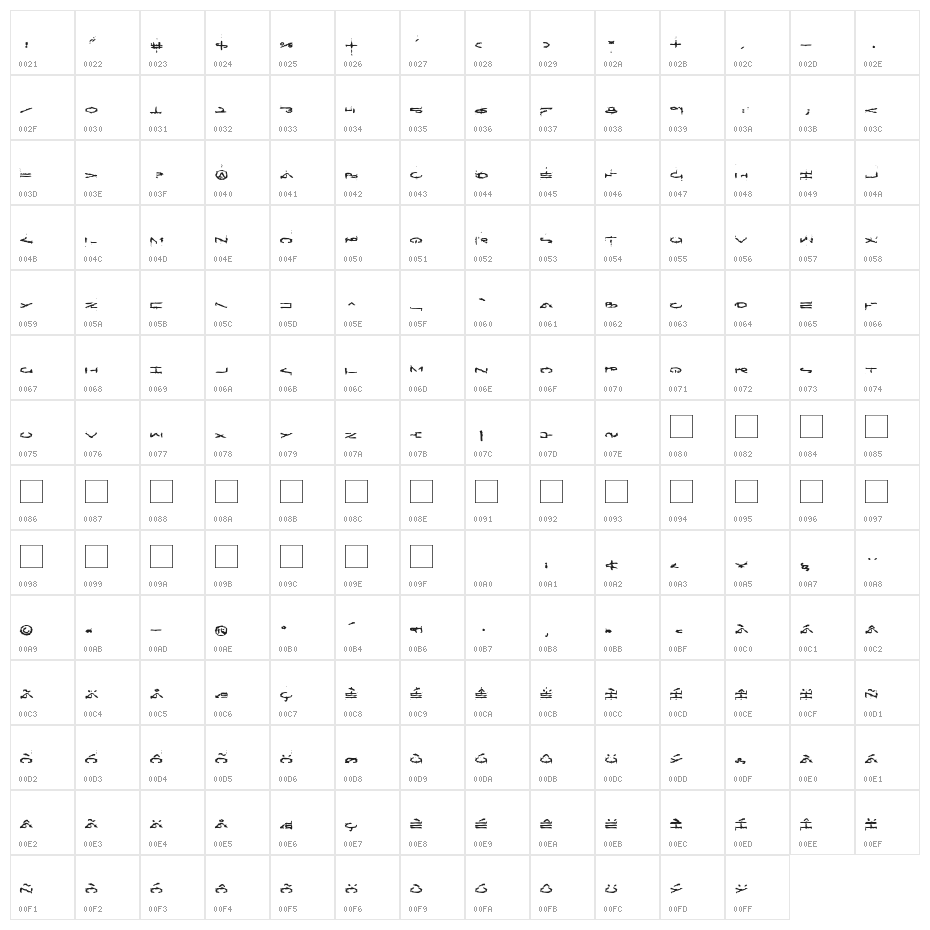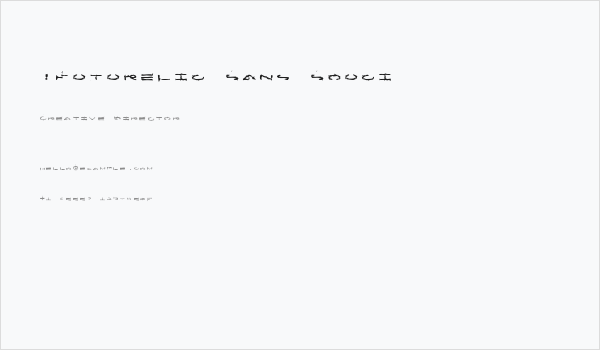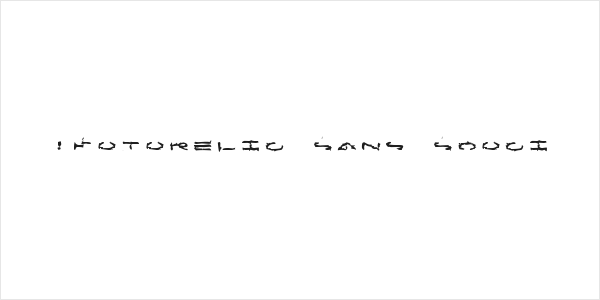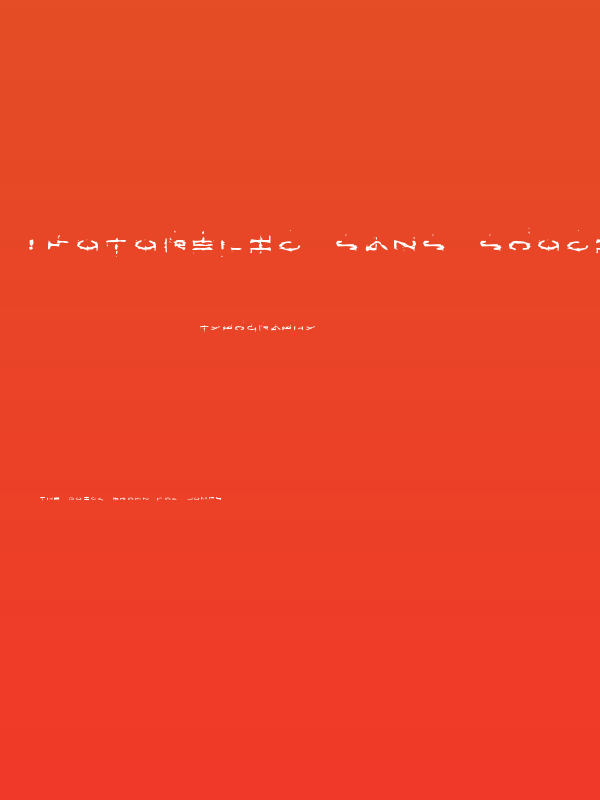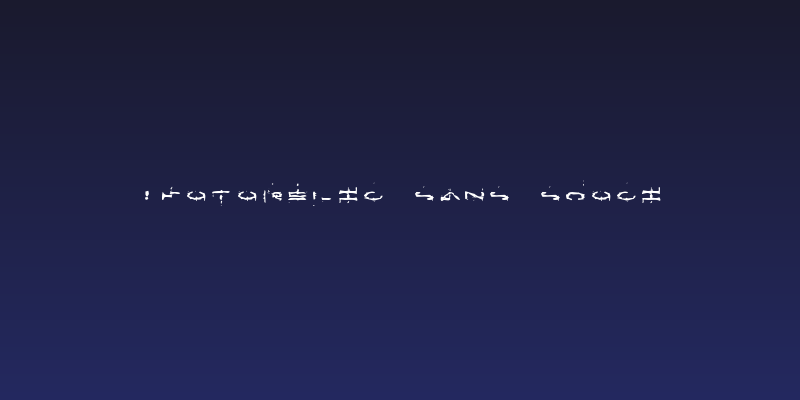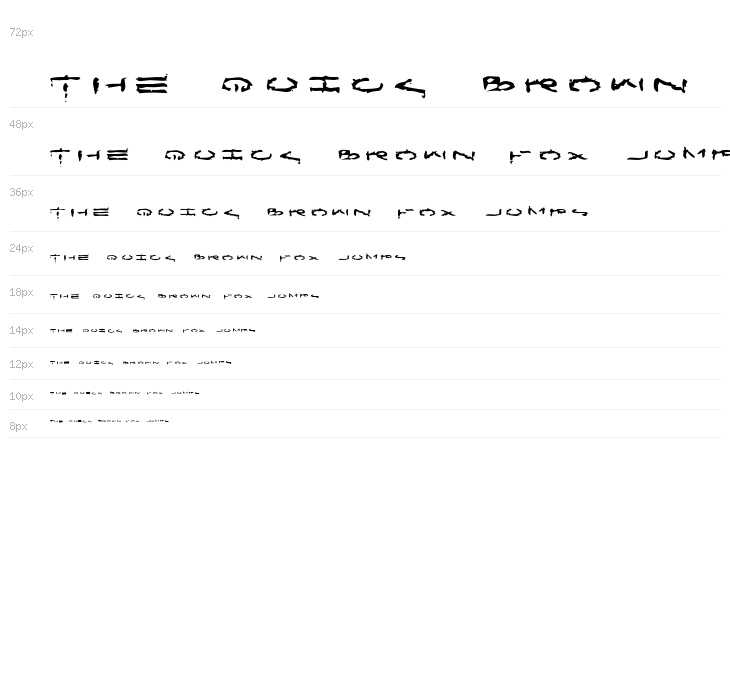
!Futurelic Sans Souci Font
!Futurelic Sans Souci Description
This font presents a unique, futuristic style with a distressed, grunge-like appearance. Each character is crafted with irregular, fragmented strokes that give it an edgy and unconventional look. The uppercase and lowercase letters maintain a consistent height, contributing to a monospaced feel. The numbers and special characters follow the same design ethos, ensuring a cohesive visual identity. The font's overall aesthetic is bold and striking, making it ideal for projects that require a modern and avant-garde touch. Its distinctive appearance is perfect for creating eye-catching headlines, posters, and digital artwork.
| Overall Style | Futuristic, Grunge |
| Use Case | Headlines, Posters, Digital Art |
| Proposed Projects | Ideal for futuristic designs, sci-fi themes, digital artwork, posters, and eye-catching headlines. |